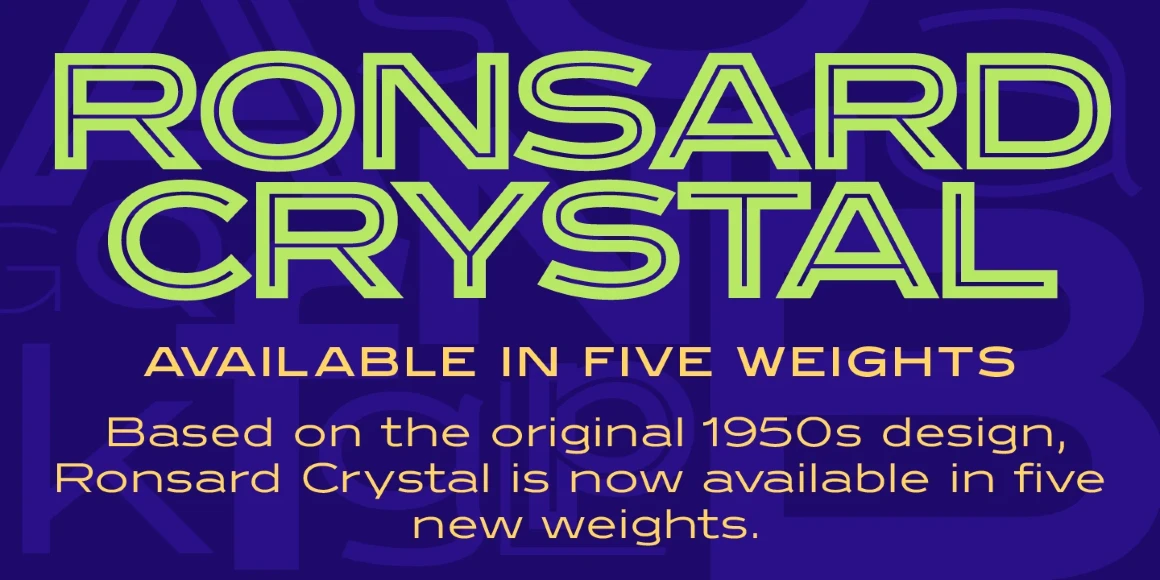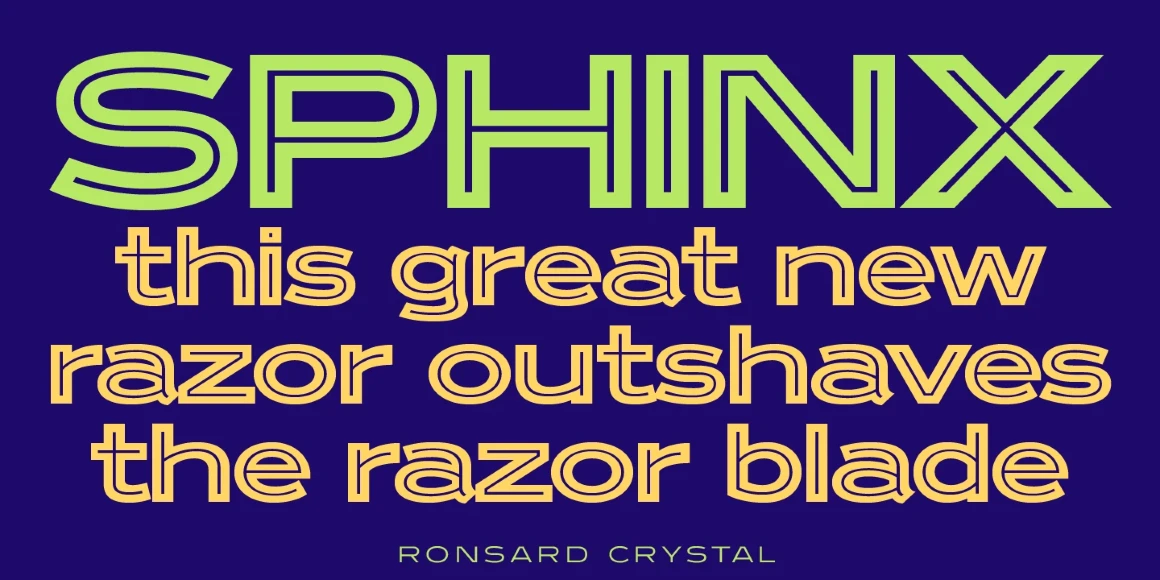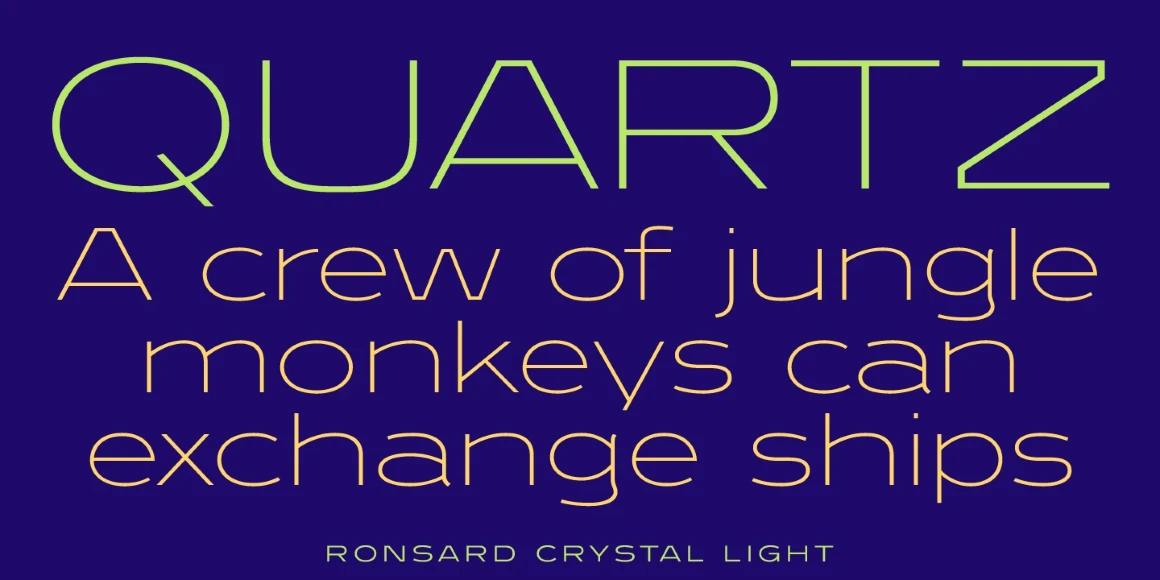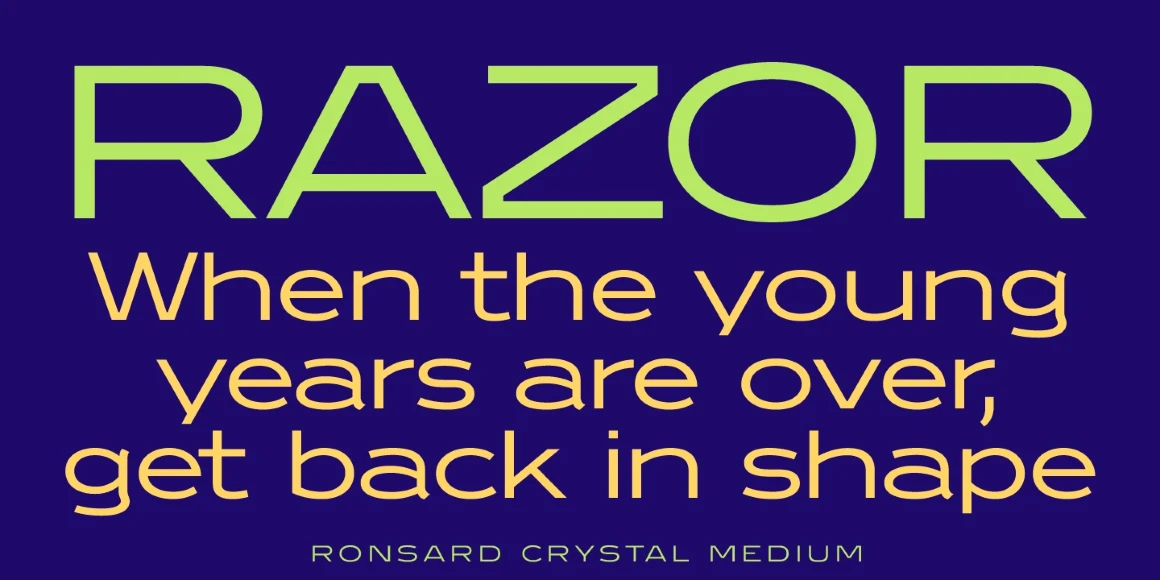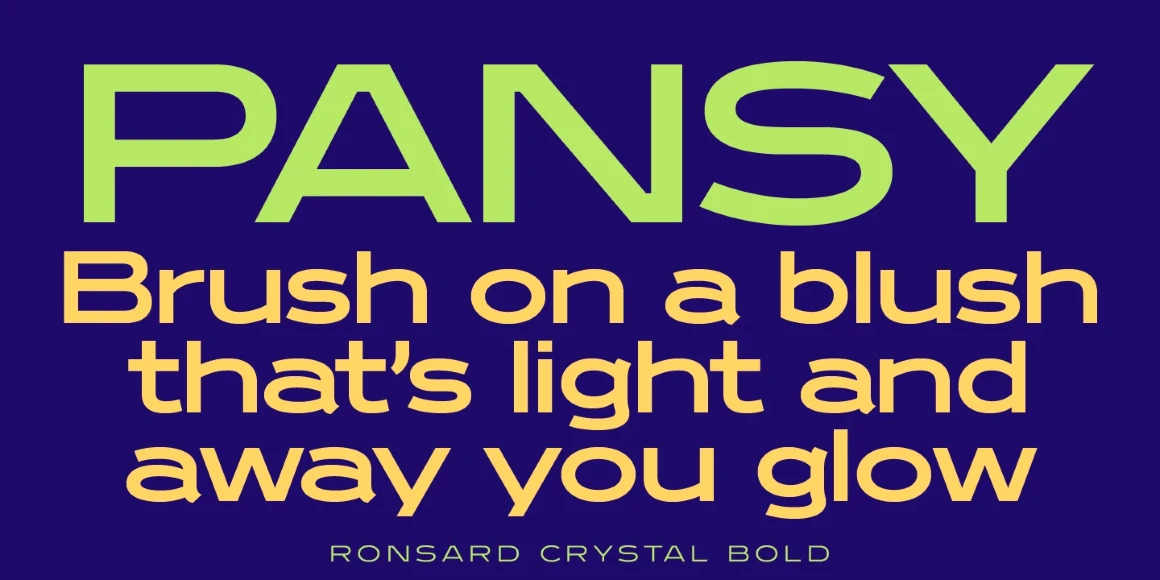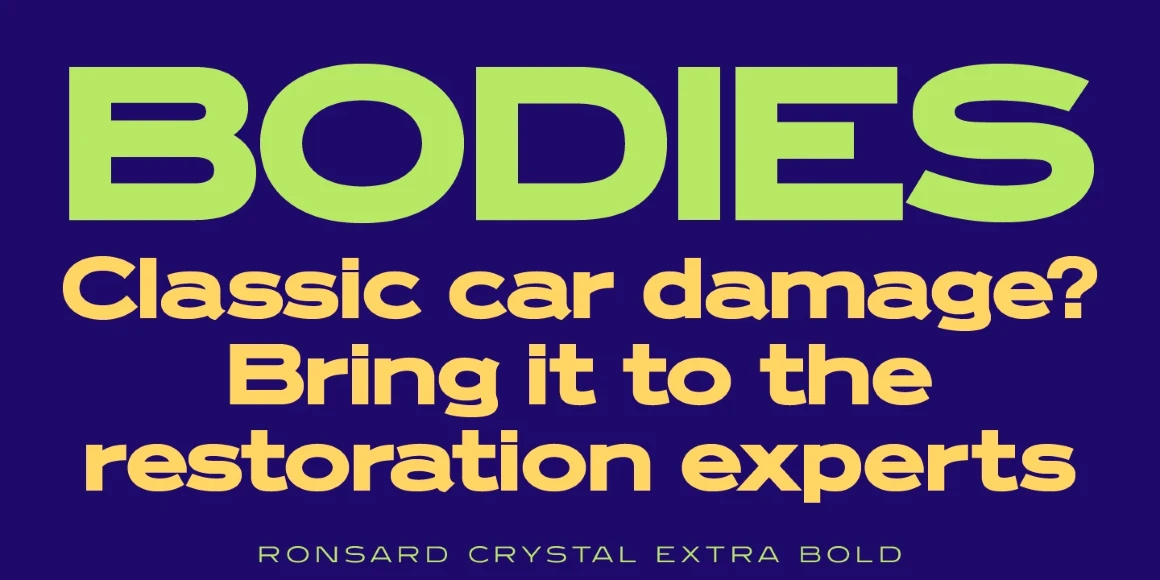
Ronsard Crystal
Ronsard Crystal is a wide sans serif font family that traces its origins to a single-weight photo-lettering font from the 1950s. It was created and produced by Steve Jackaman (ITF) and Ashley Muir in 2009. Jackaman liked the inline version so much that he and Muir created four traditional weights to complement it. Ronsard Crystal works in all text sizes, and has a blocky feel that would not be out of place in a modern ad campaign. The light weight looks particularly attractive at paragraph sizes, and the inline commands attention wherever it is used.